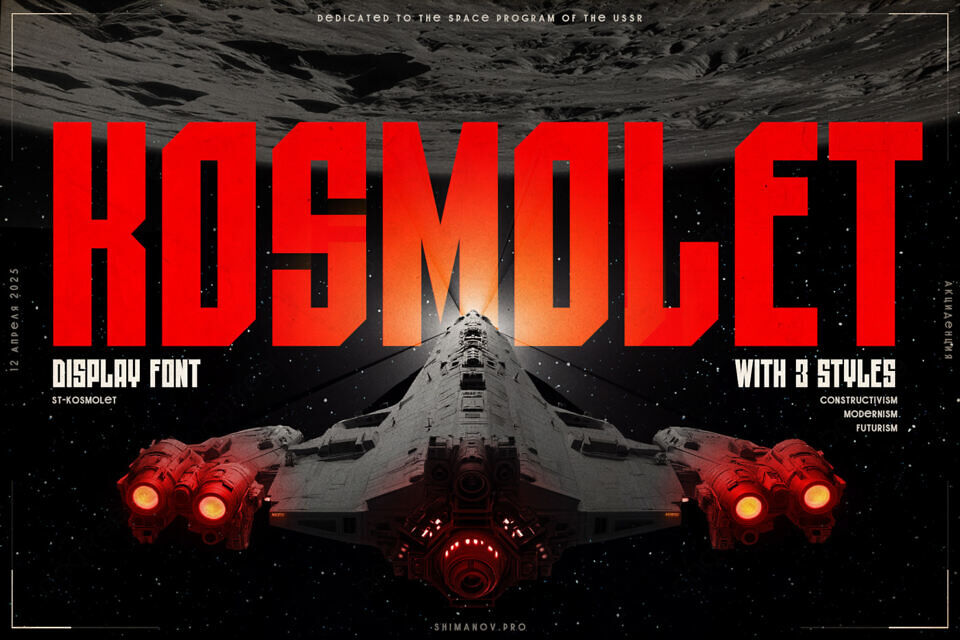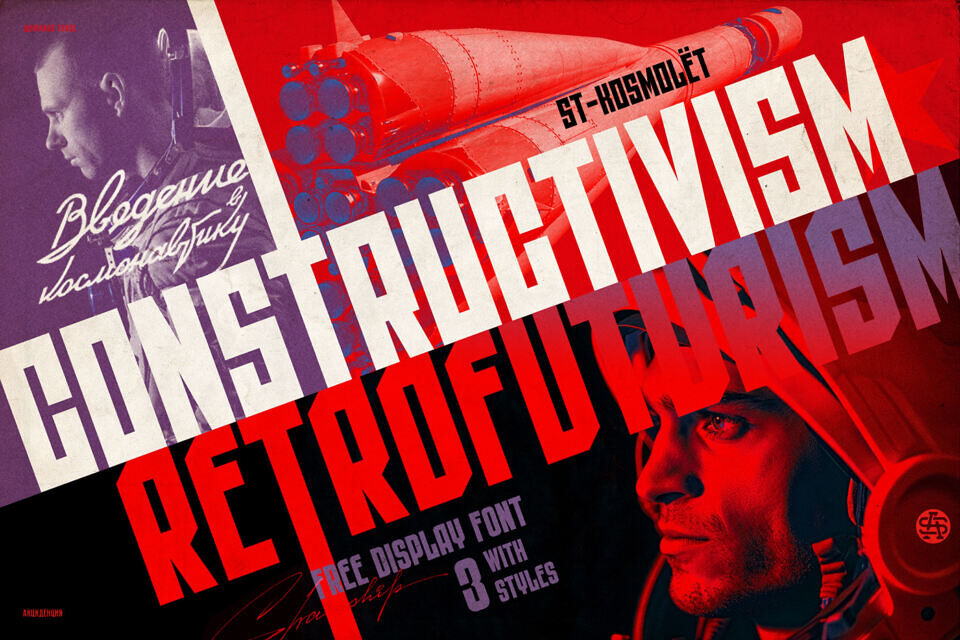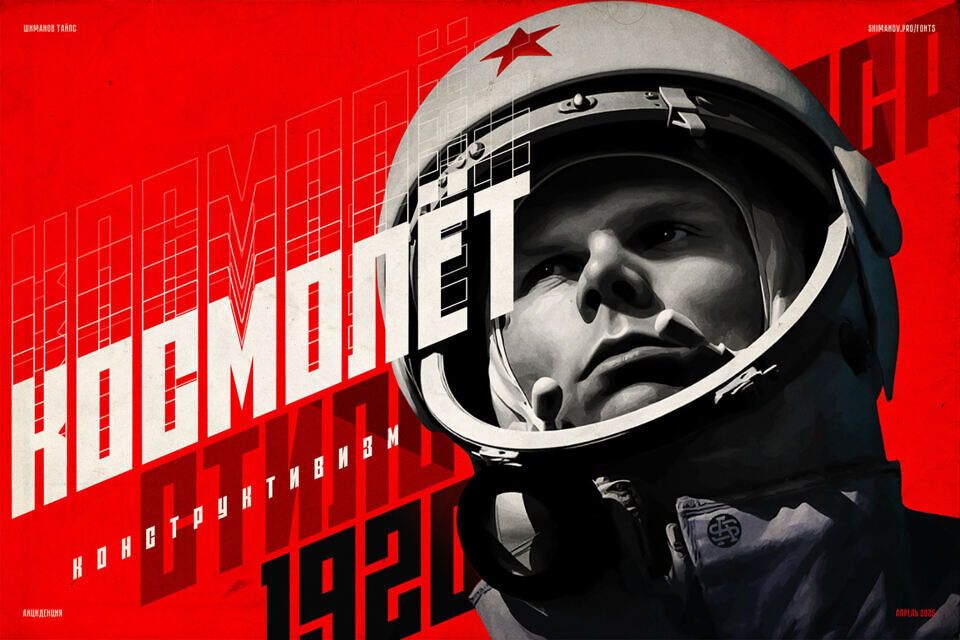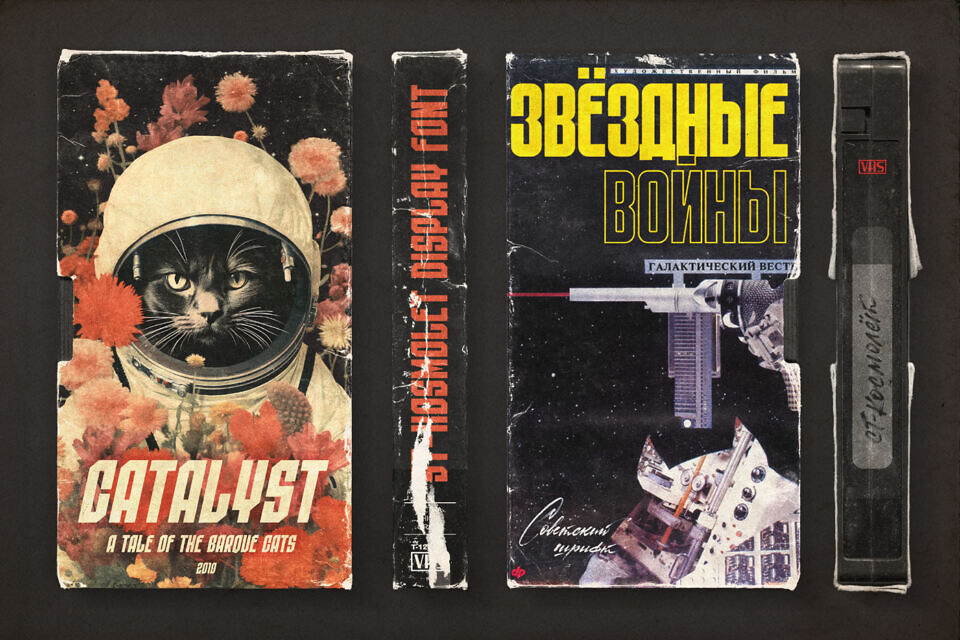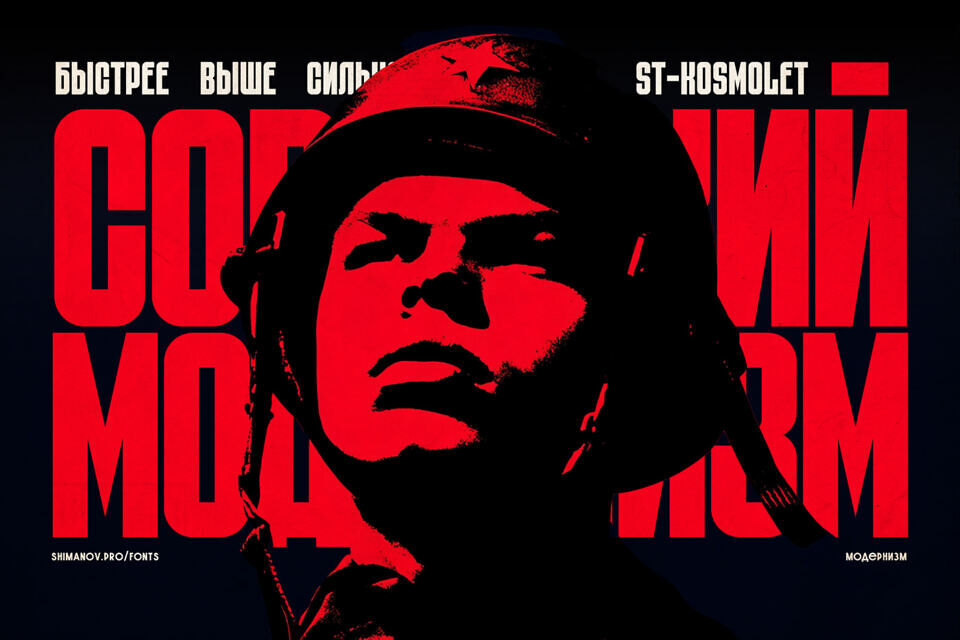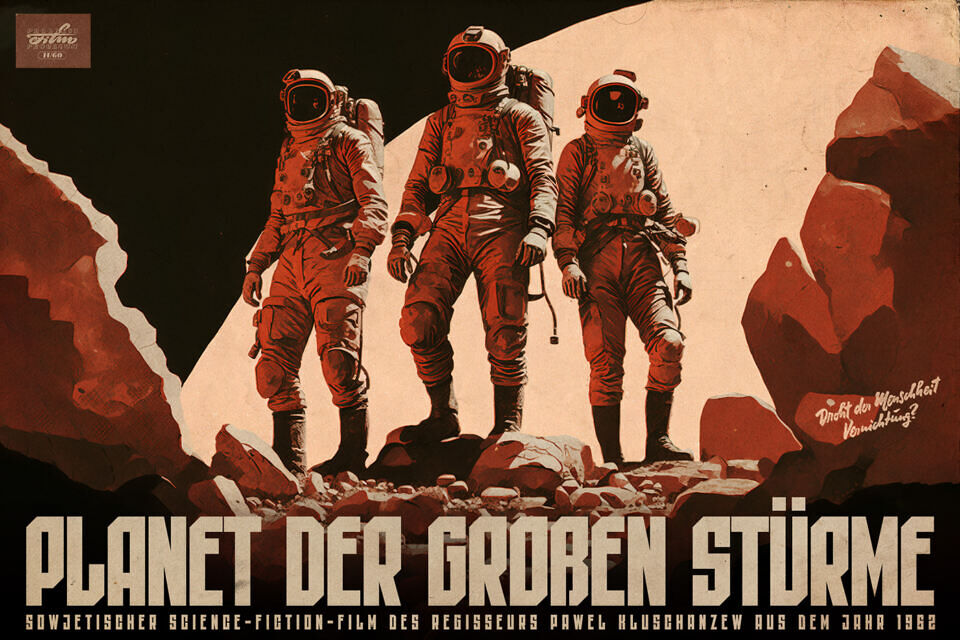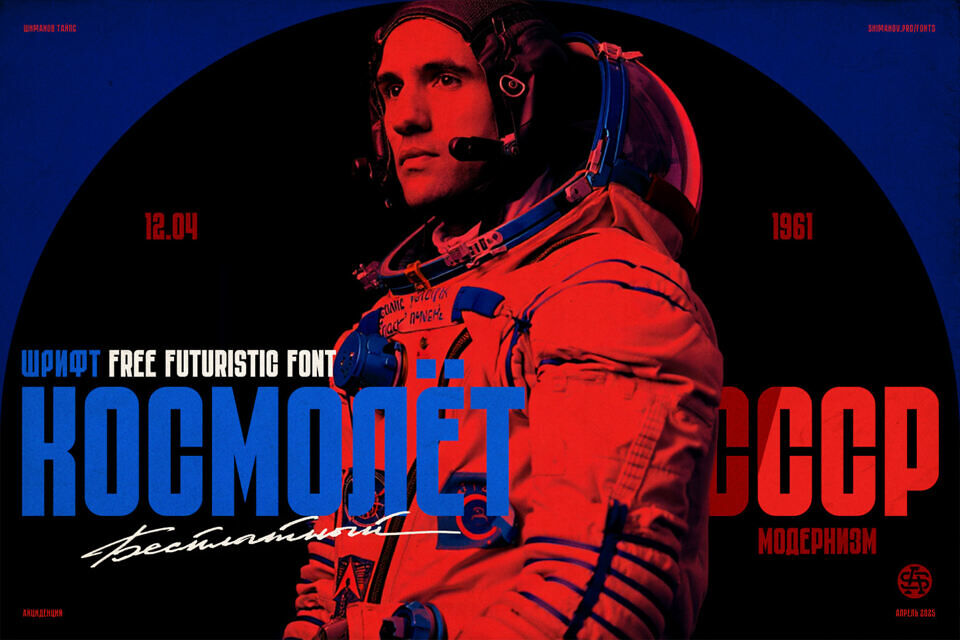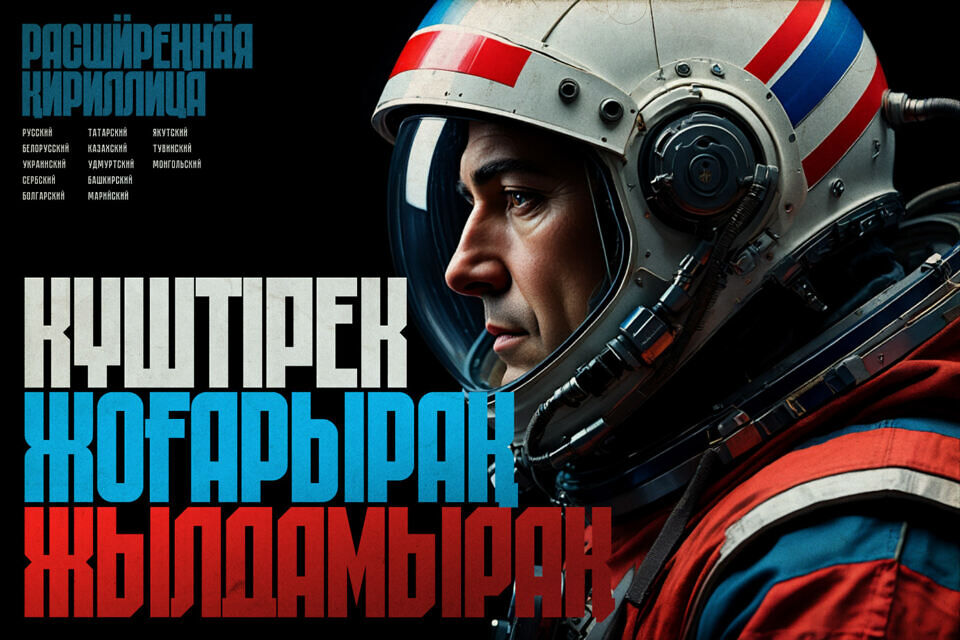
The ST-Kosmolet font is a dedication to the USSR Space program, the era of scientific romanticism and technical progress.
The font contains three styles:
- Constructivism is the first original Soviet design style, the beginning of work on space, the start of the technical progress. The style has a visually strong historical context.
- Modernism is a developed scientific and technical society and style, as the development of grotesques of the 20th century. Simple forms, easy readability.
- Futurism is the style of science fiction films and books of the late 20th century.
The font is proposed for work with display, not recommended for sets of text arrays.